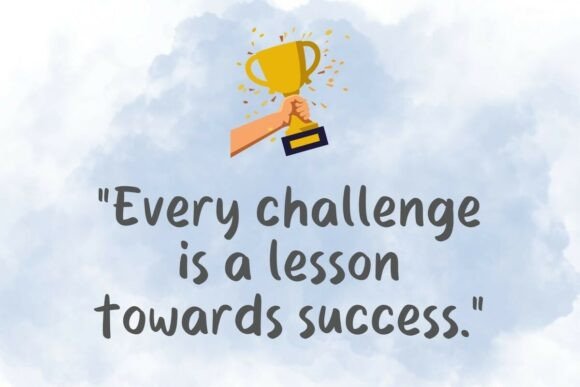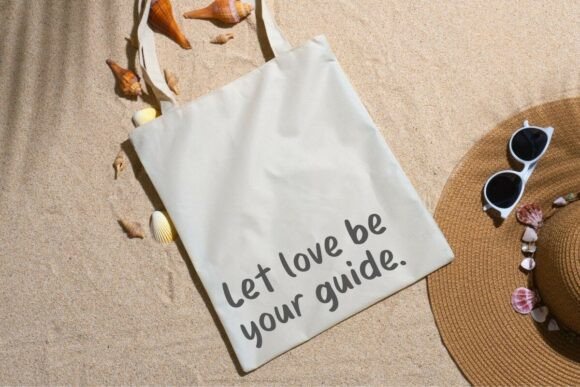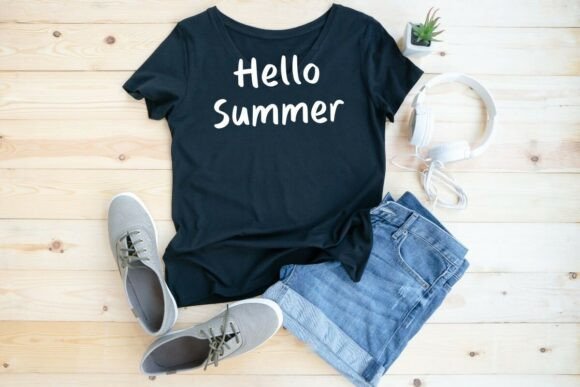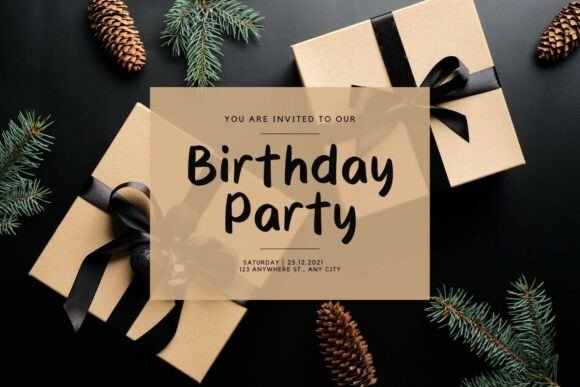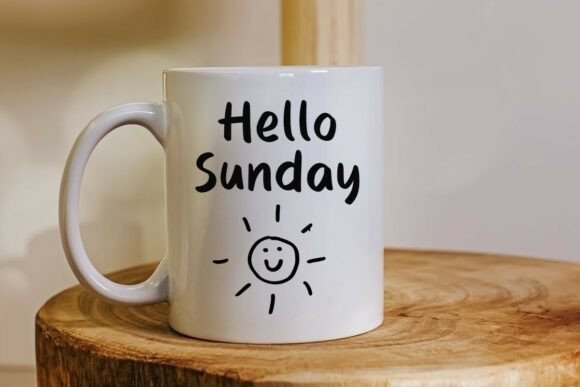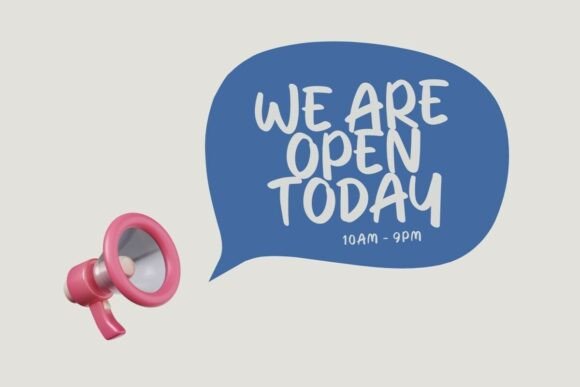
Introduction to Shout Louder Font
Have you ever been in a creative flow, pouring your heart and soul into a project, only to be stumped by the perfect font to match your vision? That’s where the “Shout Louder Font” comes in – a beautifully casual and expressive design resource that breathes life into every creation with its warm and amiable vibe.
Imagine being able to add a touch of whimsy to your social media visuals, invitations, and personal endeavors with ease. The light-hearted strokes of “Shout Louder Font” wrap each character with an easy-going aura, making it a sublime choice for designers seeking a high-quality design resource.
Key Features of Shout Louder Font
- High-quality, bold font design ideal for creative projects requiring attention-grabbing text
- Transparent background allows for easy integration with any design resource
- Perfect for use in digital designs, such as social media graphics, presentations, and web content
- Unique, hand-drawn style adds a touch of personality to any design, making it a standout design resource
- Easy to use and customize, with a clear and legible font that’s perfect for creative projects
Honest Review: Shout Louder Font
As a designer, I’ve had the chance to work with various fonts, and I recently came across the Shout Louder Font. In this review, I’ll share my honest thoughts on this design resource.
- ✨ Unique and bold design that stands out from other fonts: The Shout Louder Font has a distinct personality that’s perfect for creative projects where you want to grab attention.
- ✨ High-quality glyphs: The font’s glyphs are crisp, clear, and well-designed, making it suitable for various design applications.
- ⚠️ Limited font styles: The Shout Louder Font only comes in a single style, which might not be ideal for projects that require multiple font variations.
- ⚠️ No transparent background option: While the font’s design is great, it’s not suitable for designs with transparent backgrounds, as the font’s opaque design can be distracting.
Overall, I’m impressed with the Shout Louder Font’s unique design and high-quality glyphs. However, its limitations might make it less suitable for certain design applications. If you’re looking for a bold and eye-catching font for your creative project, the Shout Louder Font is definitely worth considering.
The Shout Louder Font is a free download design resource ideal for creative projects that require a high-quality, bold, and eye-catching font. With its transparent background, it can be easily integrated into various design platforms.
To get the most out of the Shout Louder Font, use it in combination with other design elements to create a visually striking effect.
The Shout Louder Font is ideal for use in headings, titles, and other design elements where a bold and eye-catching font is required.
It’s perfect for creative projects such as posters, flyers, and social media graphics.